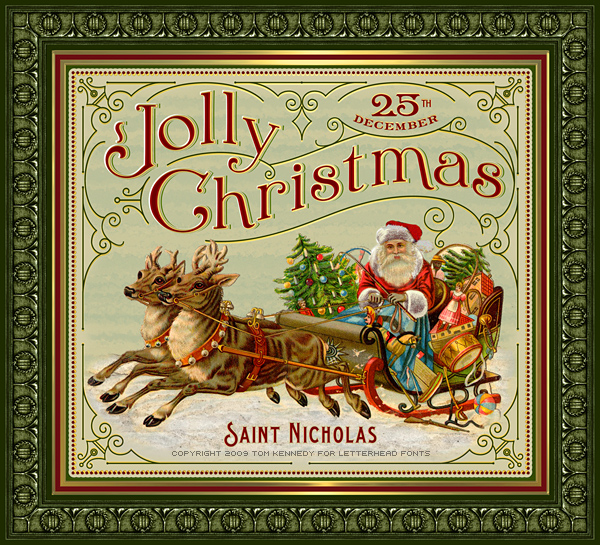
Dave Parr and Tom Kennedy are putting the finishing touches on Tom's "Confection" font set. Tom sent us this beautiful Victorian style design for it this morning...